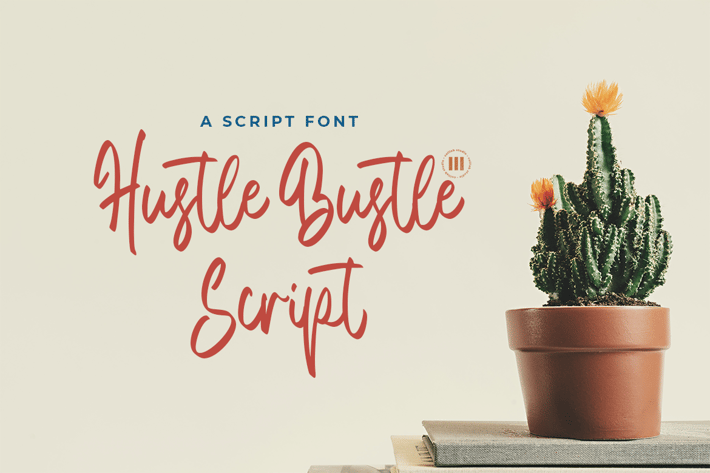
Hustle Bustle Script - A Casual Script Font
Hustle Bustle Script is A Casual Script Font that is suitable for design projects; casual theme, logo, branding, poster, quotes, display, beautiful stationary art, eye-catching social media posts, and greeting cards, and any other designs.
Full uppercase and lowercase glyphs
Numbers, punctuations, and symbols